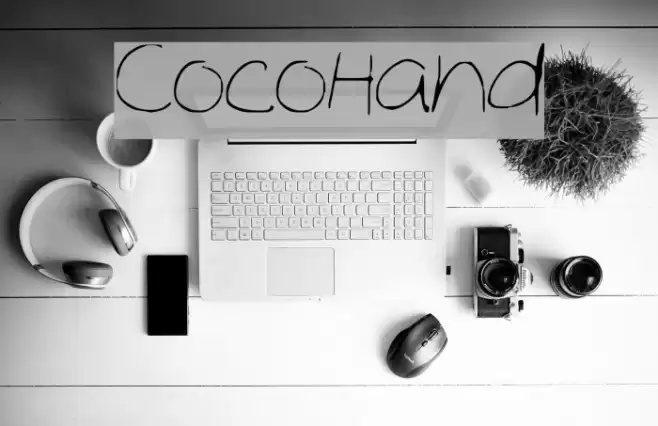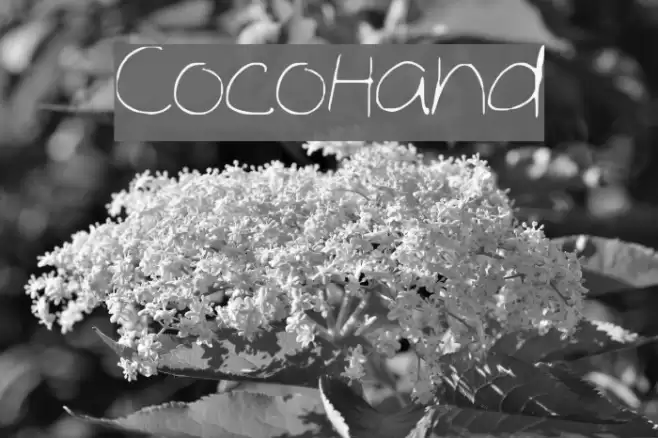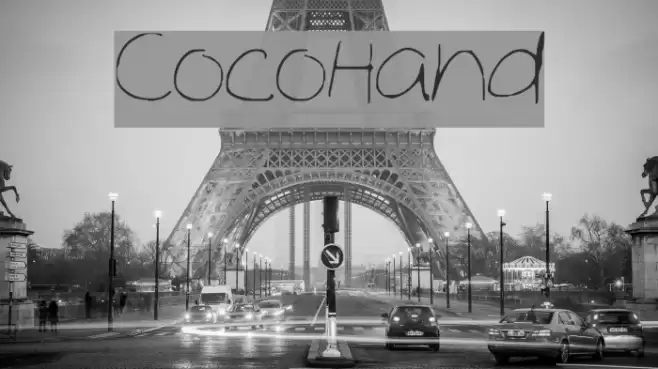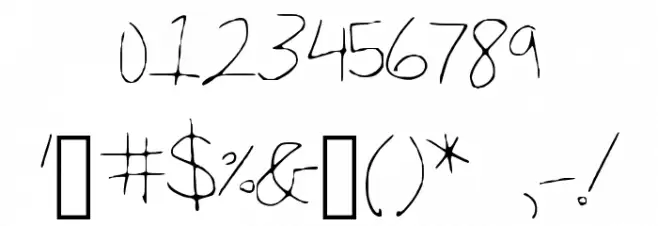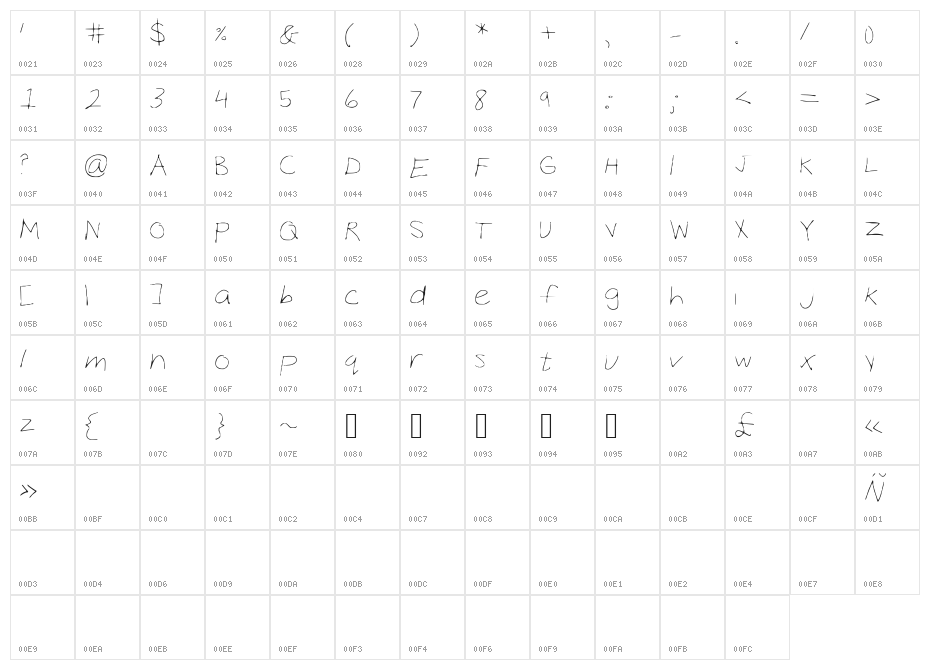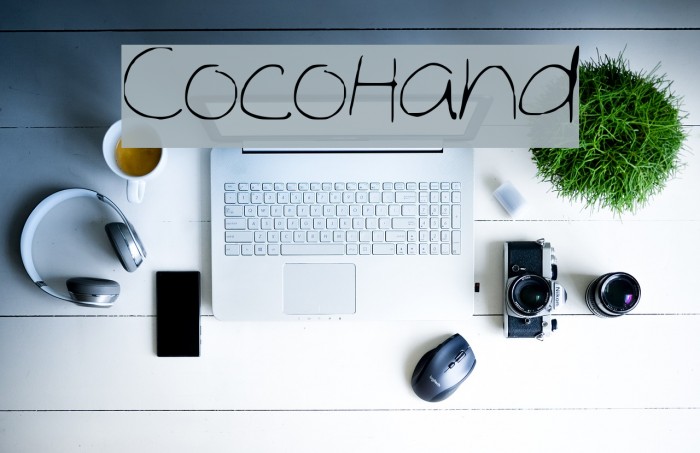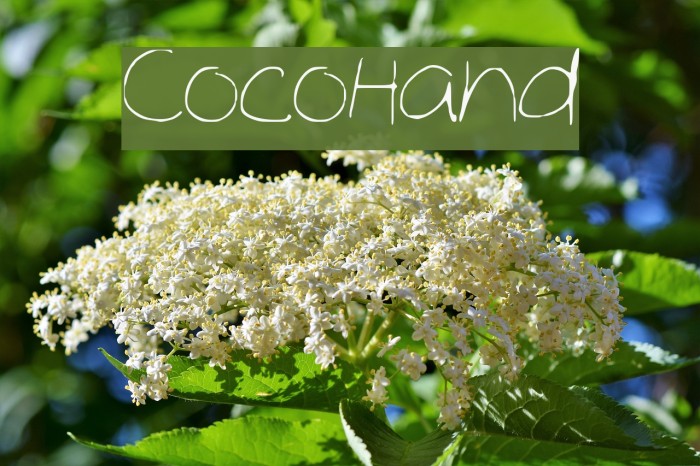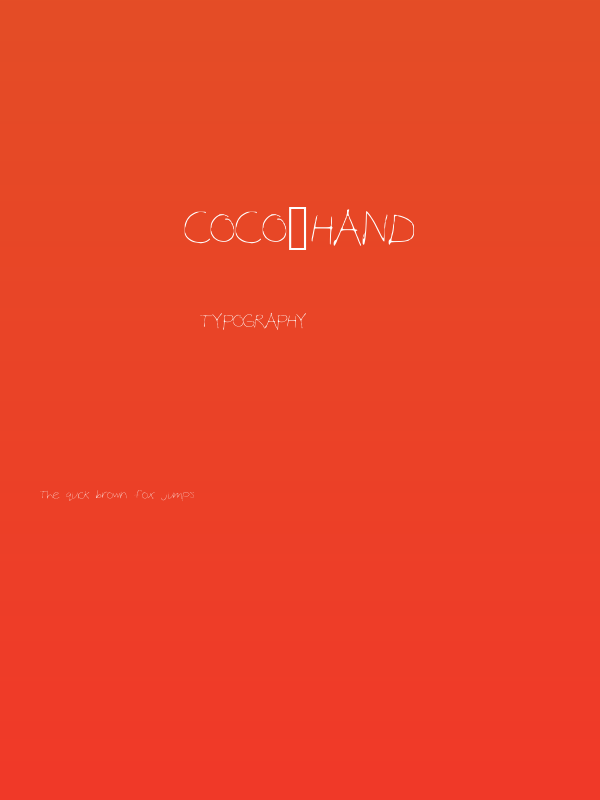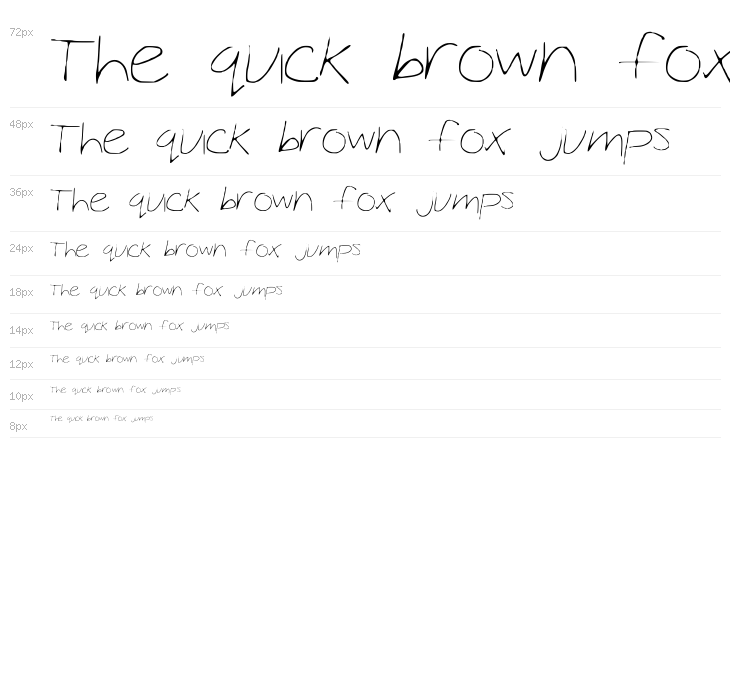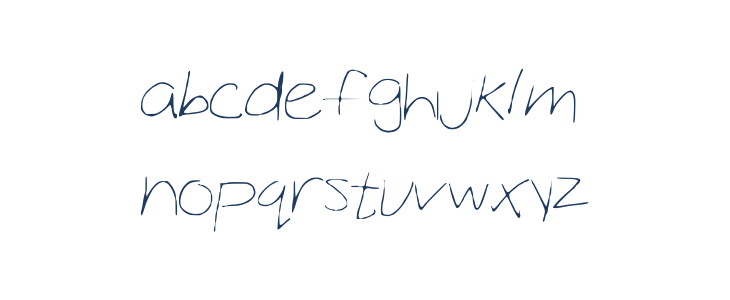
Coco_Hand Font
Coco_Hand Description
This font features a playful and casual handwritten style, characterized by its irregular strokes and organic flow. The letters have a natural, freeform appearance, with varying line thickness that adds a dynamic and lively feel. The uppercase and lowercase letters maintain a consistent style, while the numbers and special characters integrate seamlessly with the overall design. The font's informal and friendly nature makes it suitable for projects that require a personal touch.
A playful, handwritten font with irregular strokes and a casual style from Handwritten fonts.
- Proposed Projects: Ideal for greeting cards, personal invitations, casual branding, and social media graphics.
- Overall Style: Casual
- Use Case: Logos, Headlines, Social Media